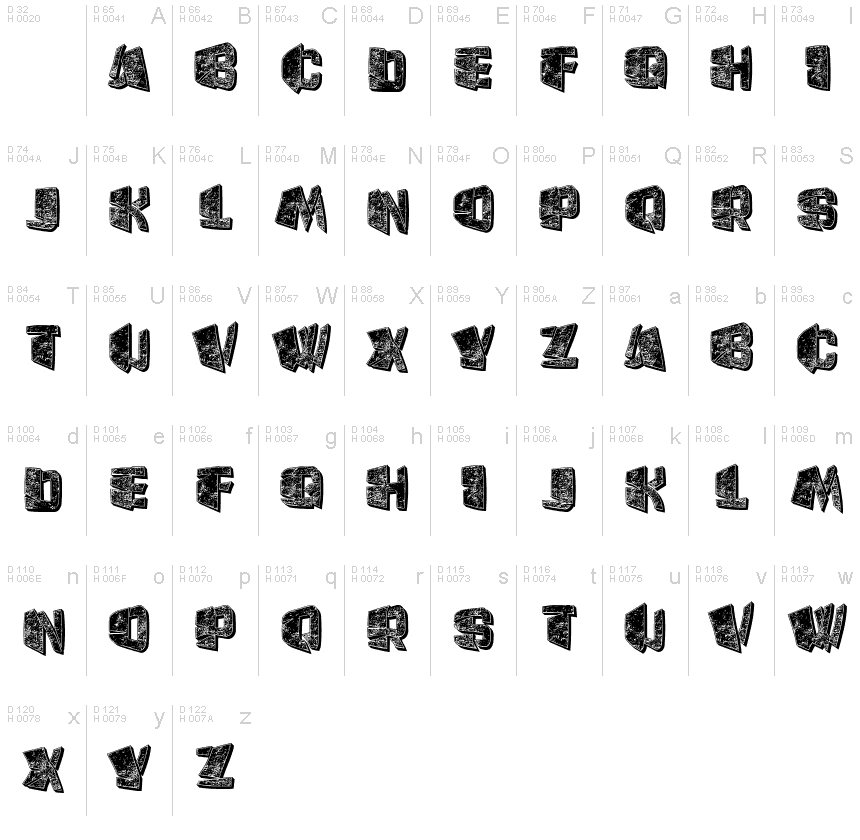
Cream Splashed is an eroded display font designed by Vladimir Nikolic.
"Cream" comes in Regular, Splashed, Filled and Gradient variant!
Cream Splashed